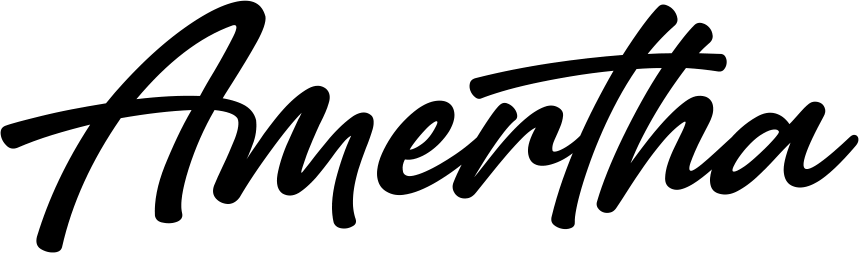
Amertha Font
Amertha is a natural and casual cursive font. It is a handwritten font that sparks emotions such as informality, and approachability in your target audience.
Amertha comes without numbers in the character collection. It can be used in calligraphy, hand-lettering, print displays, logotypes, and pretty much anywhere when you want to sound friendly, and informal.
Place one of these characters where you want the swash to appear.